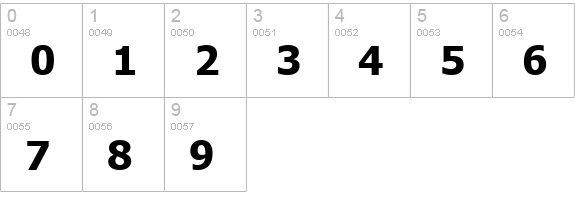
InstallFont Bold Font Details
InstallFont Bold is a strong, high-contrast variant in the InstallFont typeface family \xE2\x80\x94 well suited to headlines, attention-grabbing titles, and strong calls-to-action.
InstallFont Bold is a stunning and versatile typeface that exudes confidence and commands attention. With its bold and impactful letterforms, this font is perfect for creating eye-catching headlines, titles, and logos that demand to be noticed. Featuring a distinct and modern design, InstallFont Bold is sure to make a lasting impression in any project it is used in. Its strong and thick strokes give it a sense of power and authority, making it ideal for projects that require a bold and impactful aesthetic. This font is not only visually striking, but it is also incredibly versatile. It can be utilized across a range of design projects, from print materials such as posters and brochures, to digital platforms like websites and social media graphics. Its adaptability ensures that it can be seamlessly integrated into any design concept, adding that extra touch of professionalism and sophistication. And the best part? InstallFont Bold is absolutely free! That's right, this exceptional font is freely available to download at FontsMarket.com. Whether you're a professional designer or a budding enthusiast, this font allows you to enhance your designs without breaking the bank. So why wait? Download InstallFont Bold today and unlock the potential to create striking and memorable designs that grab attention and leave a lasting impression. With its boldness and elegance, this font is sure to elevate your projects to new heights.